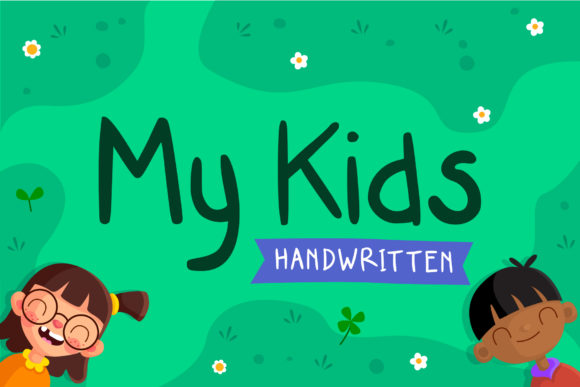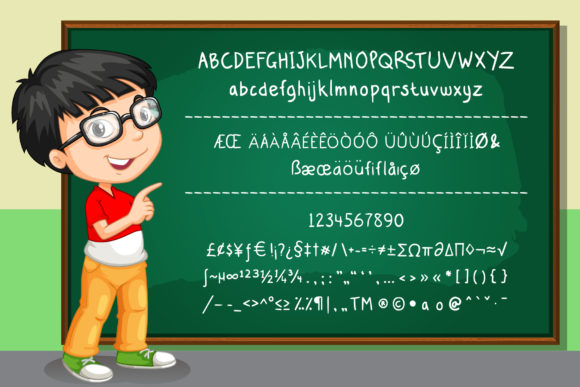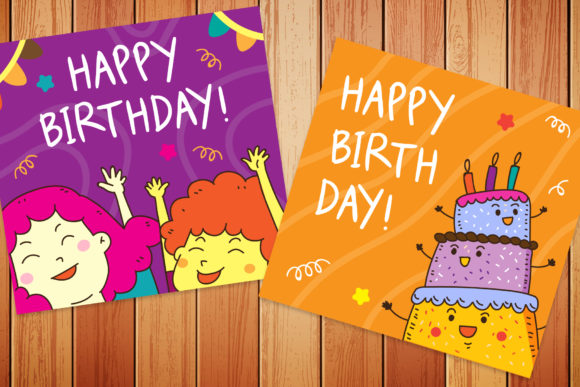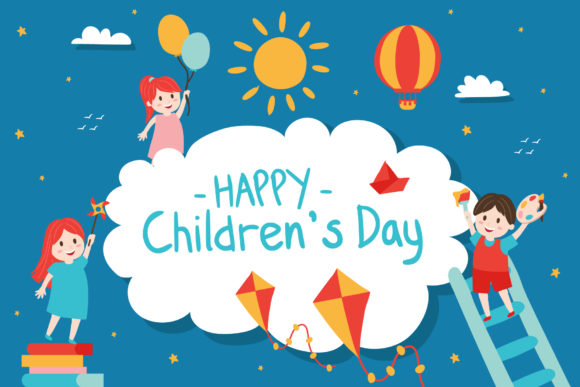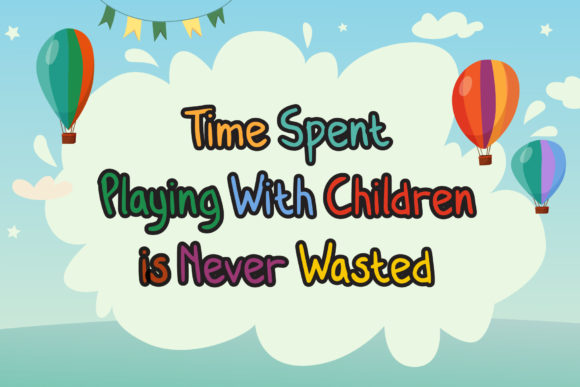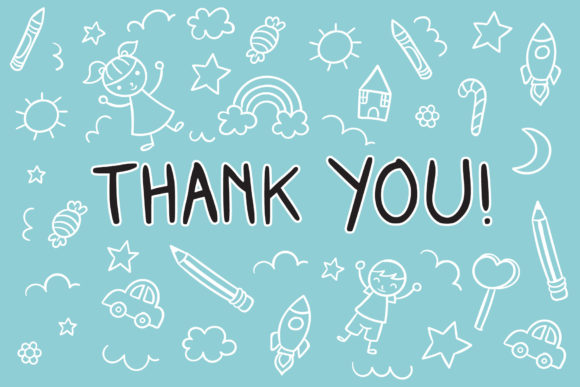
My Kids Font
About My Kids Font
My Kids is a new handwritten font suitable for use with children themed designs in mind.
Perfect for story books, branding projects, logos, advertisements, product packaging, product designs and any projects that need a handwriting taste.